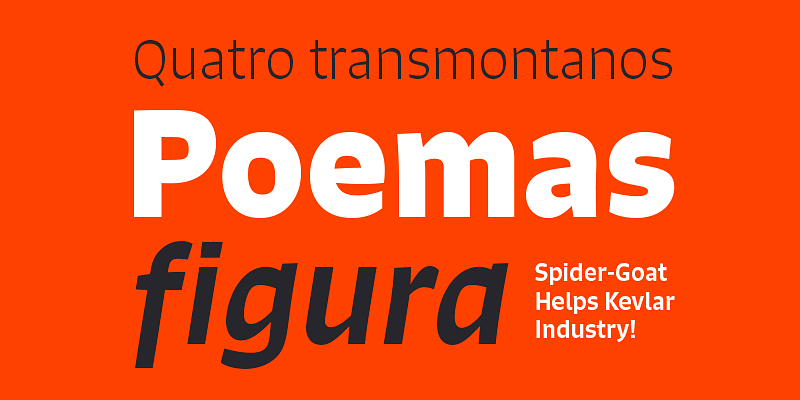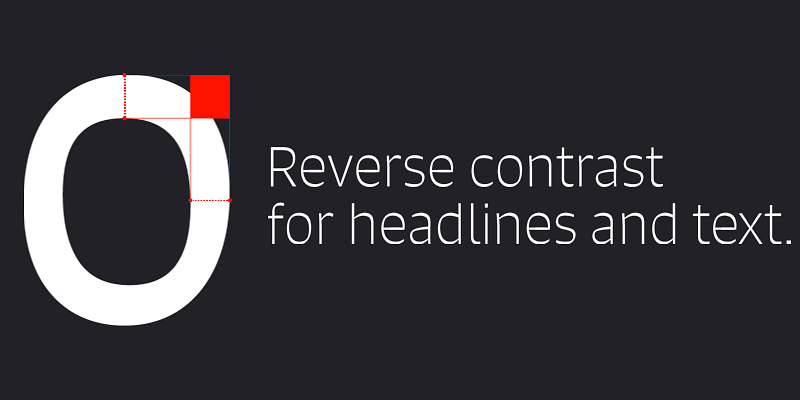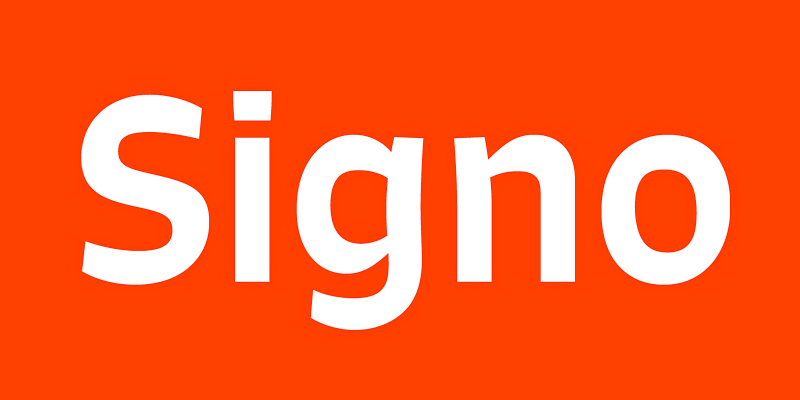
Signo is a dynamic sans serif with reverse contrast, designed for editorial and branding. Signo’s tall x-height and open counters allow it to perform well both in headlines and small sizes.
Rui Abreu
Rui Abreu is a Portuguese type and graphic designer. He studied Graphic Design at FBAUP (Faculdade de Belas Artes da Universidade do Porto), where he graduated in 2003.
In parallel with his interactive media designer job, Rui Abreu has been working on commercial fonts since 2006.